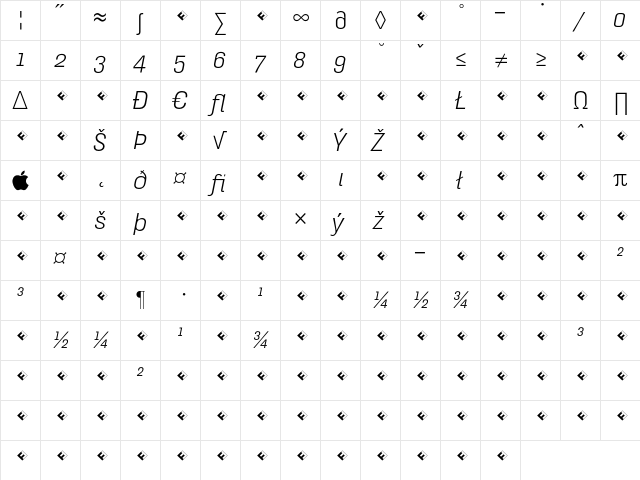
HydraText-LightItalicExpert Regular
Design Context for HydraText-LightItalicExpert Typeface
HydraText-LightItalicExpert is a composed and adaptable typeface that performs quietly and consistently across a wide range of design contexts. The dynamic lean of this cut emphasises speed and emphasis in any layout. Its slender proportions lend an understated elegance to any composition.
Pro Tip: Use HydraText-LightItalicExpert for emphasis, pull quotes, and subheadings where its slanted energy can add rhythm to the layout.